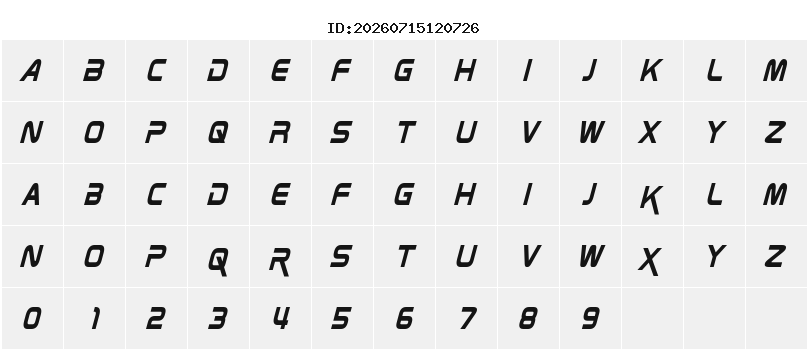
Zebulon Condensed Preview
• Font Name: Zebulon Condensed
• Font ID: Zebulon Condensed Italic:Version 1.10
• Full Font Name: Zebulon Condensed Italic
• Version: Version 1.10 July 11, 2014
• PostScript Name: ZebulonCondensed-Italic
• Character Count: 245
• Designer: Neale Davidson
• Manufacturer: Neale Davidson
About Zebulon Condensed.otf
Zebulon Condensed.otf is a modern, elegant sans-serif font designed for ultimate readability and visual harmony. Perfect for branding, headlines, web design, and print materials.